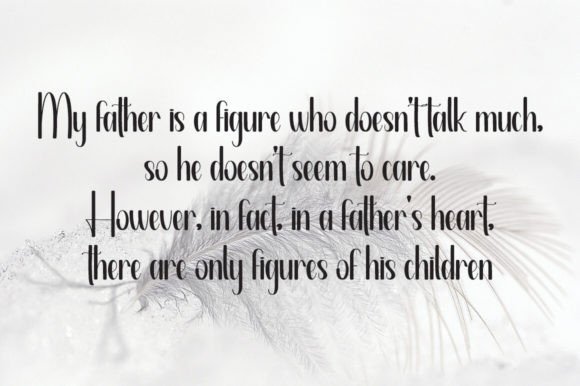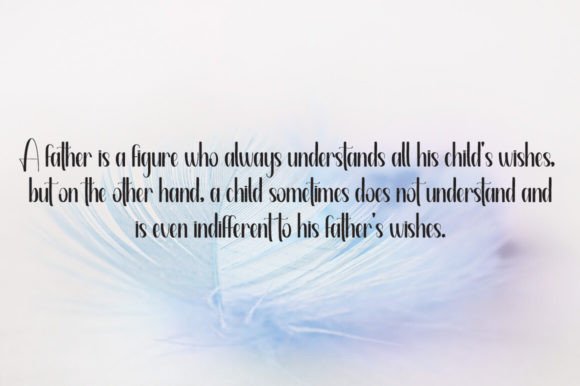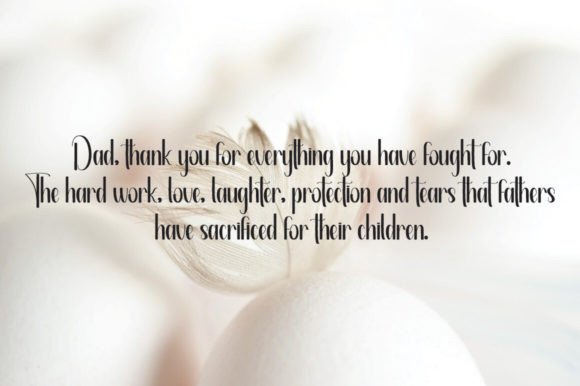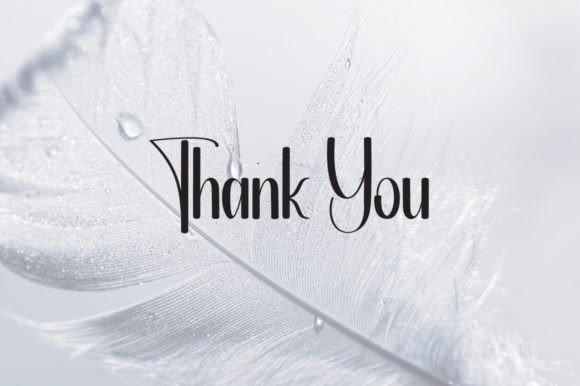
Introducing “Father Day” Font: A Sweet and Elegant Handwritten Typeface
Are you looking for a font that can add a touch of warmth and love to your designs? Look no further than the “Father Day” font, a beautiful handwritten typeface that exudes sweetness and elegance. This stunning font is perfect for designers and crafters who want to create visually stunning masterpieces that capture the essence of love and appreciation.
The Perfect Font for Father’s Day and Beyond
As its name suggests, the “Father Day” font is ideal for Father’s Day designs, but its versatility and timeless charm make it suitable for a wide range of projects. Whether you’re creating greeting cards, posters, social media graphics, or website content, this font is sure to add a romantic and joyful touch to your designs.
Cursive Elegance and Timeless Charm
The “Father Day” font boasts a cursive elegance that is both refined and playful. Its handwritten style gives it a personal and intimate feel, making it perfect for designs that require a touch of warmth and personality. The font’s classic and timeless charm ensures that it will remain a popular choice for years to come, long after trends have come and gone.
Transform Your Design Ideas into Masterpieces
The “Father Day” font has the magic to transform any design idea into a visually stunning masterpiece. Its sweet and elegant style adds a touch of sophistication and glamour to any design, making it perfect for designers who want to create high-end visuals. Whether you’re working on a personal project or a client’s brief, this font is sure to help you create something truly special.
Key Features of the “Father Day” Font
• Handwritten style: The “Father Day” font features a beautiful handwritten style that gives it a personal and intimate feel.
• Cursive elegance: The font’s cursive style adds a touch of sophistication and glamour to any design.
• Timeless charm: The font’s classic and timeless charm ensures that it will remain a popular choice for years to come.
• Versatility: The “Father Day” font is suitable for a wide range of projects, from greeting cards to website content.
How to Use the “Father Day” Font in Your Designs
• Pair it with other fonts: The “Father Day” font pairs well with other fonts, so feel free to experiment with different combinations to find the perfect look for your design.
• Use it for headings and titles: The font’s cursive elegance makes it perfect for headings and titles, where you want to make a bold statement.
• Add a personal touch: The font’s handwritten style gives it a personal and intimate feel, making it perfect for designs that require a touch of warmth and personality.
In conclusion, the “Father Day” font is a beautiful handwritten typeface that is sure to add a touch of warmth and love to your designs. Its cursive elegance, timeless charm, and versatility make it perfect for a wide range of projects, from Father’s Day designs to everyday graphics. So why wait? Download the “Father Day” font today and start creating visually stunning masterpieces that capture the essence of love and appreciation.